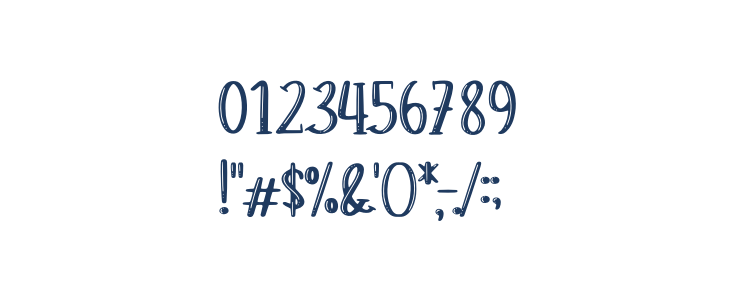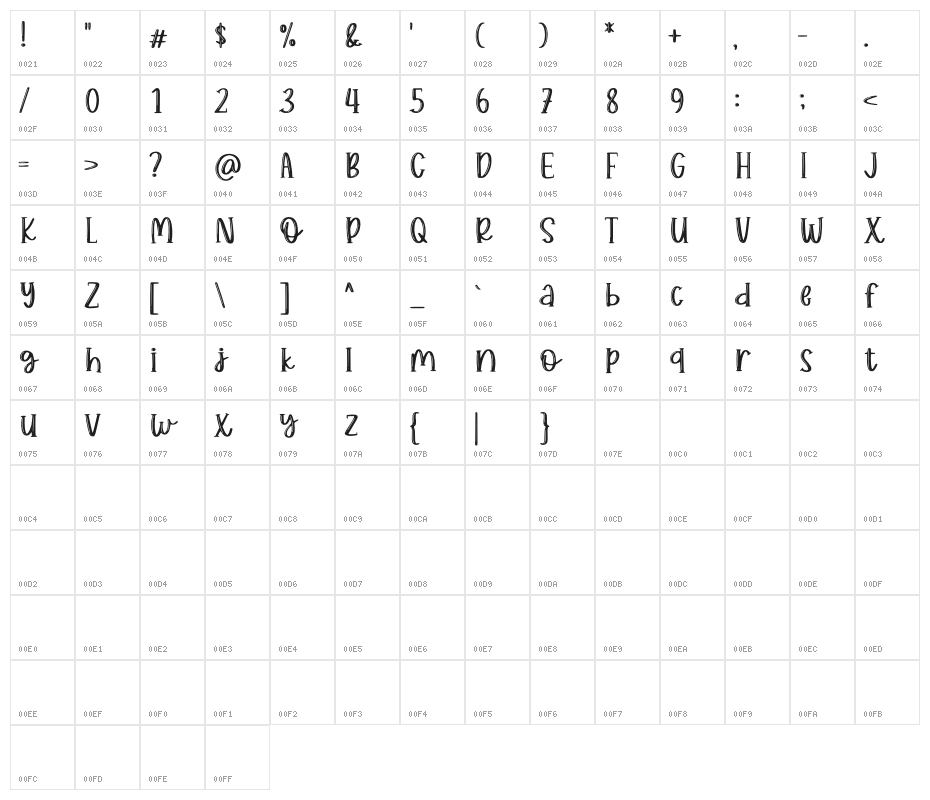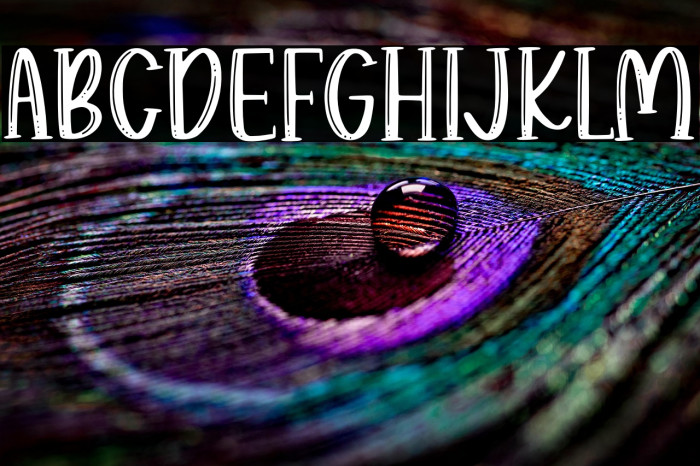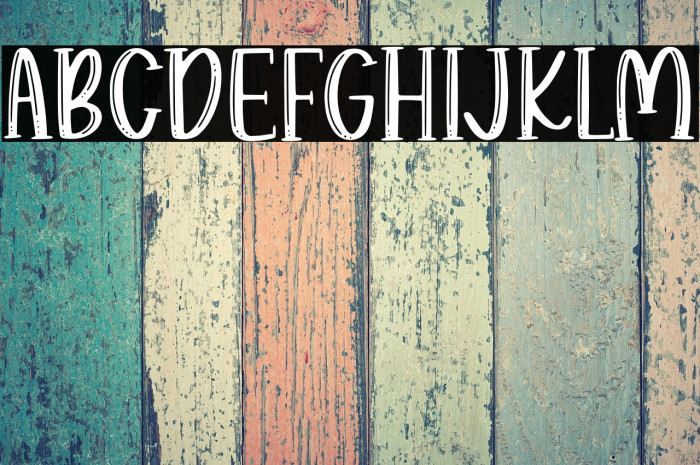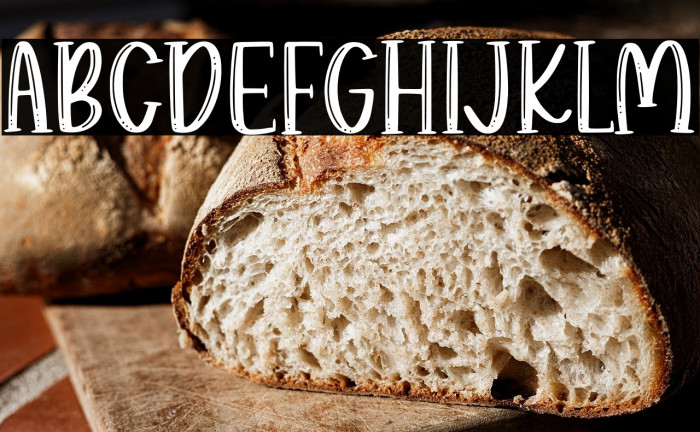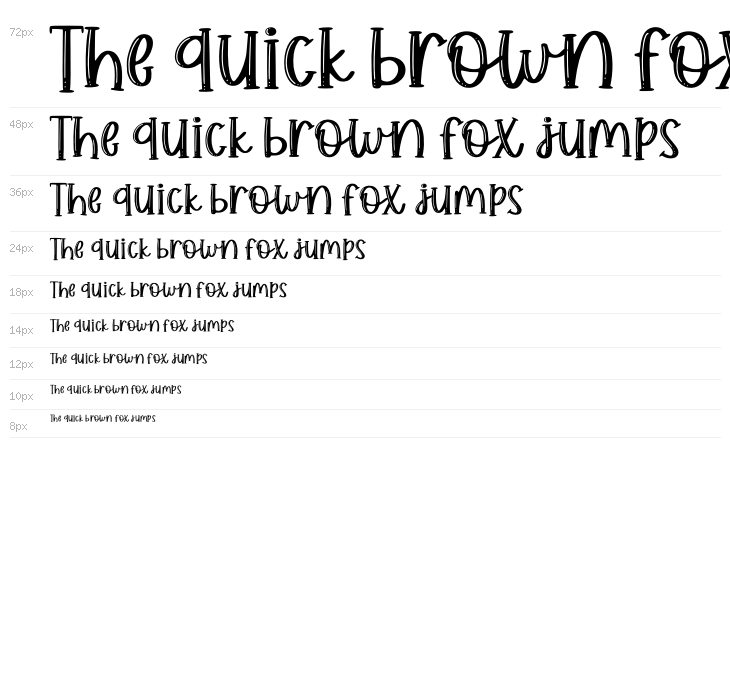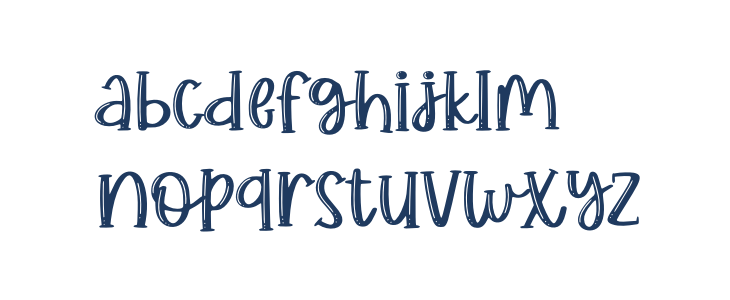
Moon Charming Slab Demo Font
Moon Charming Slab Demo Description
This font exudes a playful and whimsical charm, characterized by its bold, hand-drawn style. The letters are adorned with subtle serifs and feature a unique, slightly irregular stroke that adds to its handcrafted feel. The uppercase and lowercase letters maintain a consistent style, with rounded edges and a slight slant that gives a sense of movement. Numbers and special characters are equally expressive, ensuring a cohesive look across all text elements. The font's decorative nature makes it ideal for creative projects that require a touch of personality and flair.
| Overall Style | Whimsical, Handcrafted |
| Proposed Projects | Ideal for greeting cards, children's books, playful branding, and DIY projects. |